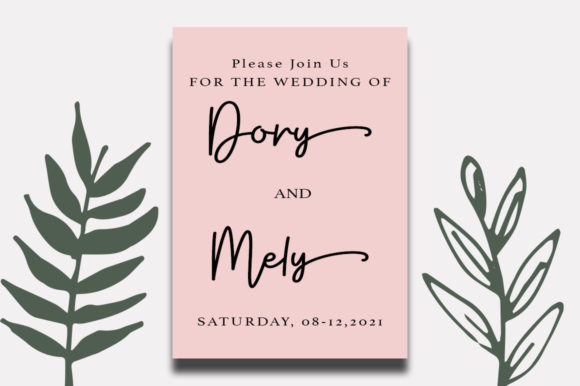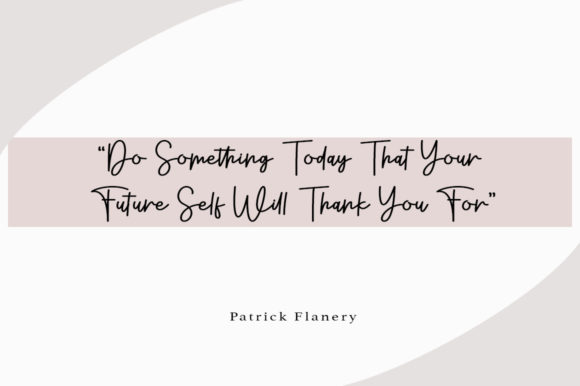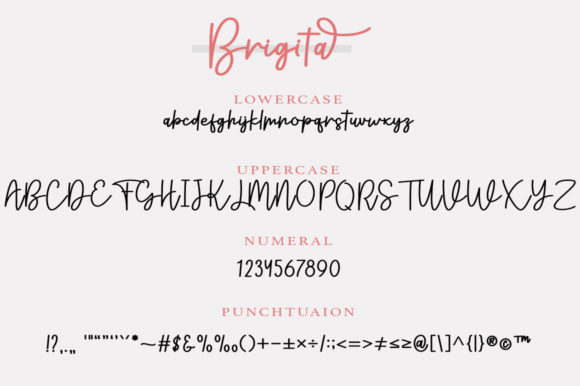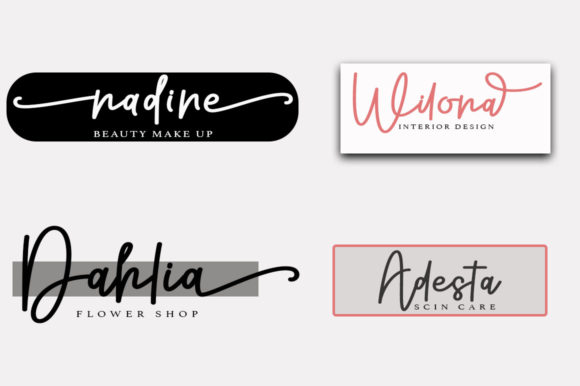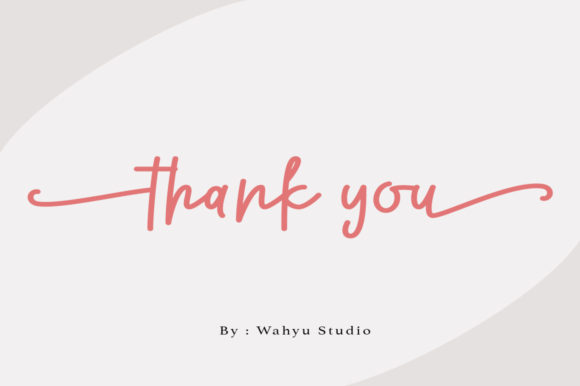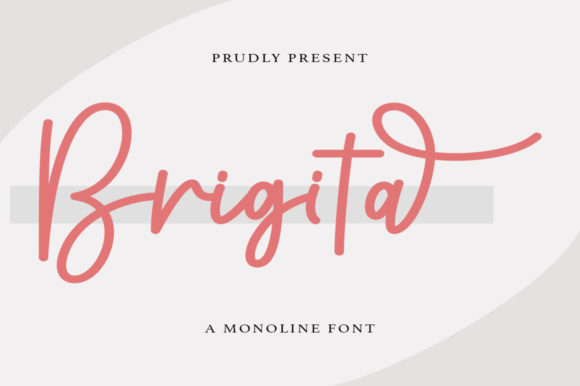
Introducing Brigita Font: The Ultimate Luxury Calligraphy Typeface
Are you looking for a font that adds a touch of romance and sweetness to your design projects? Look no further than Brigita Font, a stunning calligraphy typeface that is sure to elevate your designs to the next level. With its unique and elegant characters that dance along the baseline, Brigita Font is the perfect choice for designers and crafters who want to add a luxury spark to their work.
What Makes Brigita Font So Special?
Brigita Font is a romantic and sweet calligraphy typeface that is designed to make your designs stand out. Its characters are carefully crafted to dance along the baseline, creating a beautiful and fluid motion that is sure to capture the attention of your audience. Whether you’re working on a branding project, a wedding invitation, or a packaging design, Brigita Font is the perfect choice for adding a touch of elegance and sophistication.
One of the best things about Brigita Font is that it is PUA (Private Use Area) encoded, which means that you can access all of the amazing glyphs and ligatures with ease. This makes it easy to use the font in your designs, even if you’re not a professional typographer. With PUA encoding, you can simply copy and paste the glyphs and ligatures into your design software, making it easy to add a touch of luxury to your work.
Brigita Font is perfect for designers and crafters who want to add a touch of elegance and sophistication to their work. Whether you’re working on a commercial project or a personal craft project, Brigita Font is the perfect choice for adding a luxury spark to your designs. With its unique and elegant characters, Brigita Font is sure to make your designs stand out from the crowd.
Use Brigita Font for:
• Branding and logo design: Add a touch of elegance and sophistication to your brand with Brigita Font.
• Wedding invitations and stationery: Make your wedding invitations and stationery stand out with the romantic and sweet charm of Brigita Font.
• Packaging design: Add a touch of luxury to your packaging designs with Brigita Font.
• Signage and display design: Make your signage and display designs stand out with the unique and elegant characters of Brigita Font.
• Craft projects: Add a touch of elegance and sophistication to your craft projects with Brigita Font.
Tips for Using Brigita Font
Here are a few tips for using Brigita Font in your designs:
• Use Brigita Font as a headline font to add a touch of elegance and sophistication to your designs.
• Pair Brigita Font with a simple sans-serif font to create a beautiful contrast.
• Experiment with different colors and textures to add depth and interest to your designs.
• Use the glyphs and ligatures to add a touch of whimsy and personality to your designs.
Brigita Font is a stunning calligraphy typeface that is sure to add a luxury spark to any design project. With its unique and elegant characters, PUA encoding, and ease of use, Brigita Font is the perfect choice for designers and crafters who want to elevate their designs to the next level. Whether you’re working on a commercial project or a personal craft project, Brigita Font is sure to make your designs stand out from the crowd.